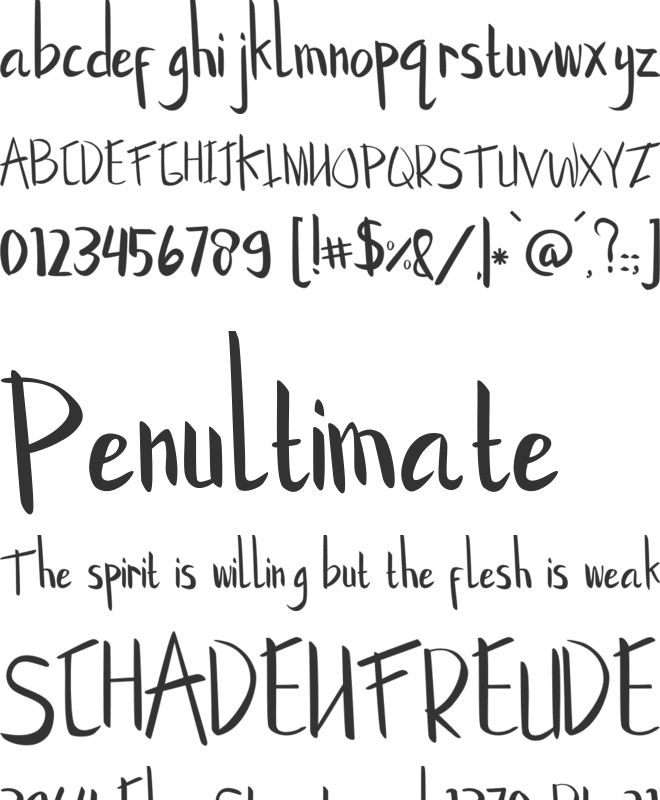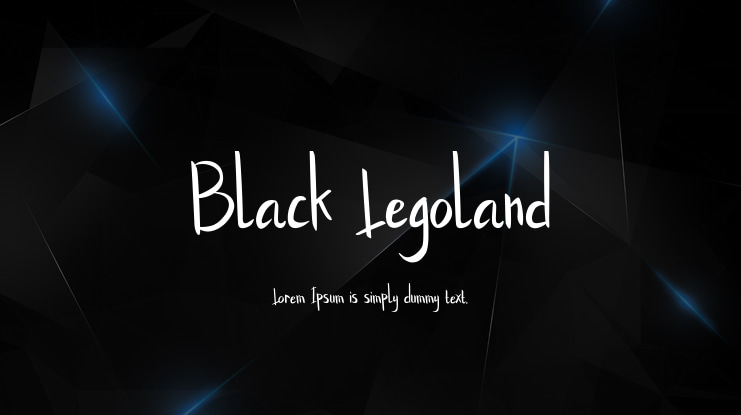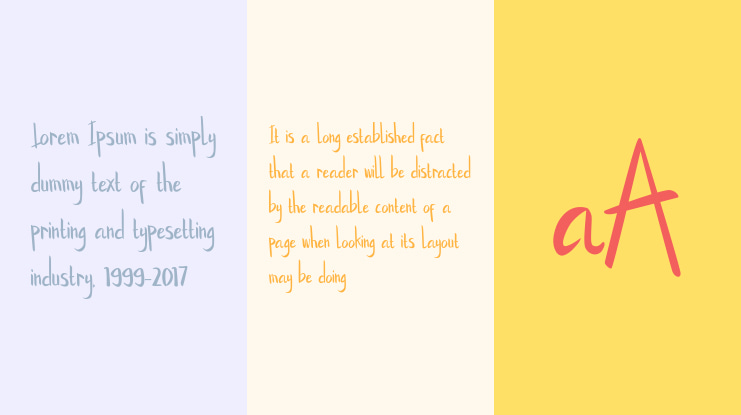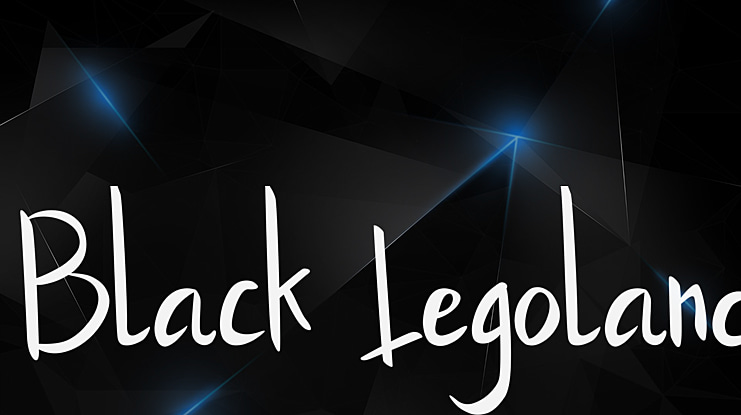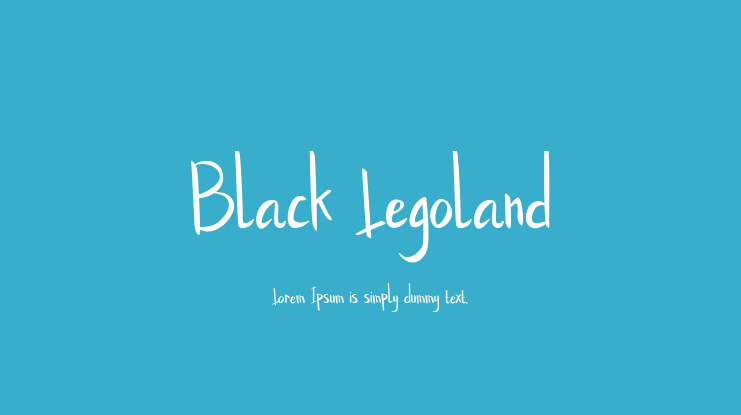
Black Legoland Font
Black Legoland is a relaxed and cool script font. This font is neatly crafted and highly detailed. Whatever the topic, this font will be a wonderful asset to your font library, as it has the potential to enhance any creation.